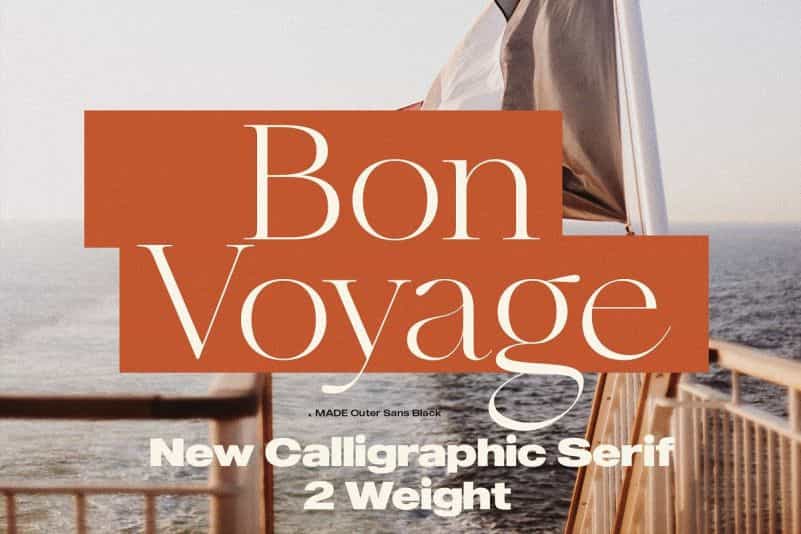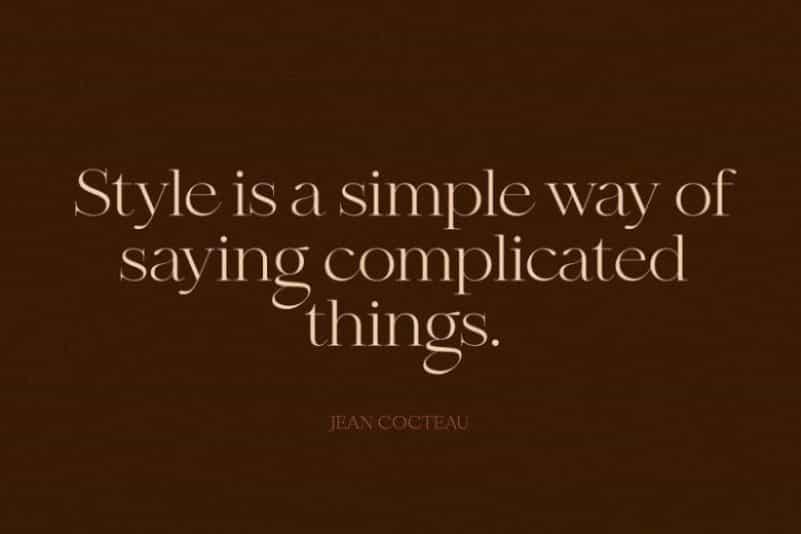
Bon Voyage Font is a stylish and contemporary typeface with non-English characters for basic glyphs. This font can be easily combined with signatures, scripts or writing styles for the best results.